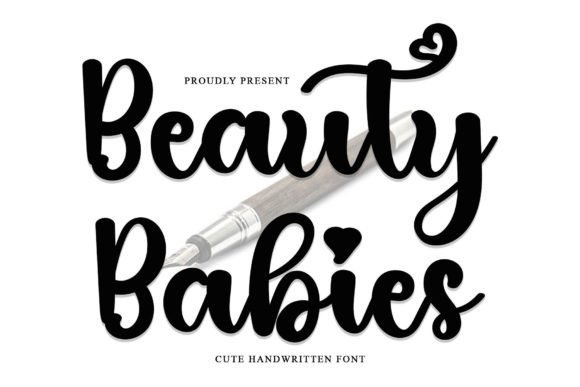
Discover the Timeless Beauty of the Beauty Babies Font
Remember the moment when a perfect combination of words and design elements clicked into place, and you knew you had created something truly special? For designers, that ‘aha’ moment is what drives us to keep pushing the boundaries of creativity. And when the right font is involved, it’s like the missing piece of a puzzle finally falls into place.
Enter the Beauty Babies Font, a beautiful handwritten font that brings an elegant touch to any project. Its distinct and timeless style makes it perfect for designers looking to add a personal touch to their work. Whether you’re creating a logo, a social media graphic, or a wedding invitation, the Beauty Babies Font is sure to make your designs stand out. With its versatility and charm, this font is a valuable addition to any designer’s toolkit.
Beauty Babies Font Key Features
- Font Family: Beauty Babies
- Unique Characteristics: Whimsical and playful design, featuring baby-themed illustrations and ornaments
Designer Review: Beauty Babies Font
Overall, I think the Beauty Babies Font is a sweet addition to any designer’s toolkit. It’s perfect for creating a playful, whimsical vibe in your projects.
- The font’s rounded edges and soft curves create a lovely, childlike feel that’s sure to put a smile on people’s faces.
- The range of weights and styles offers a lot of flexibility for designers looking to create a cohesive visual identity.
- The font’s legibility is surprisingly good, making it easy to read even at smaller font sizes.
- The font may be a bit too sweet for some projects – if you’re going for a more serious or sophisticated look, this might not be the best choice.
- The font’s rounded edges can sometimes make it difficult to read at very small font sizes, especially for those with vision impairments.
- The font is available in a limited range of languages, which may be a concern for designers working on multilingual projects.
Overall, I think the Beauty Babies Font is a great choice for designers looking to add a touch of whimsy to their projects. While it may have some limitations, its unique personality and range of styles make it a valuable addition to any designer’s toolkit.
The Beauty Babies font is ideal for feminine and playful designs, such as:
1. Children’s party invitations and decorations.
2. Baby shower invitations and decorations.
3. Fashion and beauty branding.
Remember to use the font in moderation and balance it with other design elements to avoid overwhelming the design.